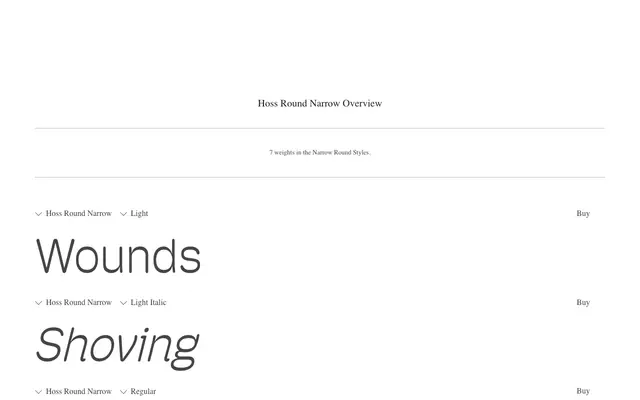
Hoss Round Narrow
A narrow, rounded grotesque available in seven weights with matching italics and a handful of OpenType alternates.
The narrow cut of the Hoss Round family, offering fourteen styles across seven weights from Light to Ultra, each paired with an italic. OpenType features include alternate single-storey and schoolbook forms for the 'a', alternate 'g' and 'y', and an alternate 'l', giving some flexibility in texture and tone. The condensed proportions suit space-constrained settings whilst the rounded terminals keep things approachable.
A rounded grotesque with terminal rounding applied throughout; the narrow width positions it as a condensed variant of the Hoss Round family.